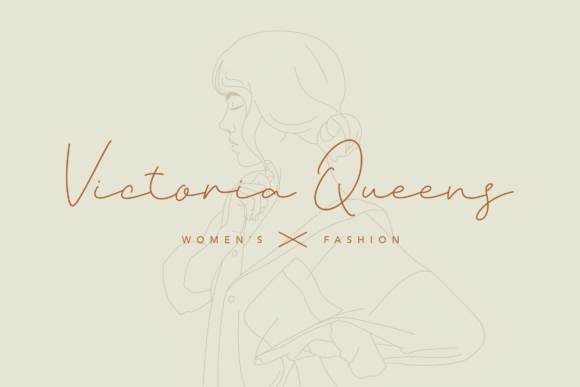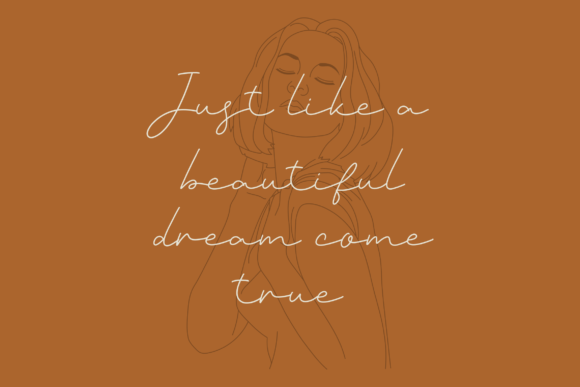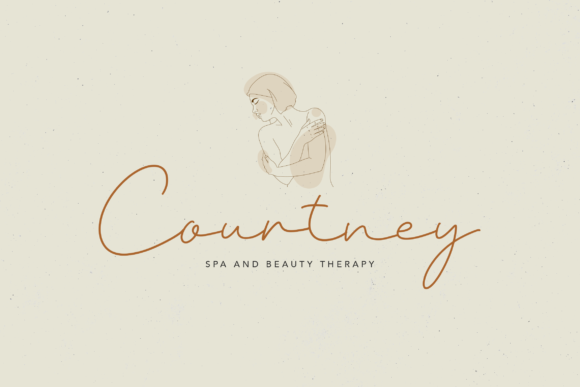
Introduction to Mischella Font
Mischella is an incredibly distinct, delicate and timeless handwritten font.
Key Features of Mischella Font
Why Choose Mischella Font?